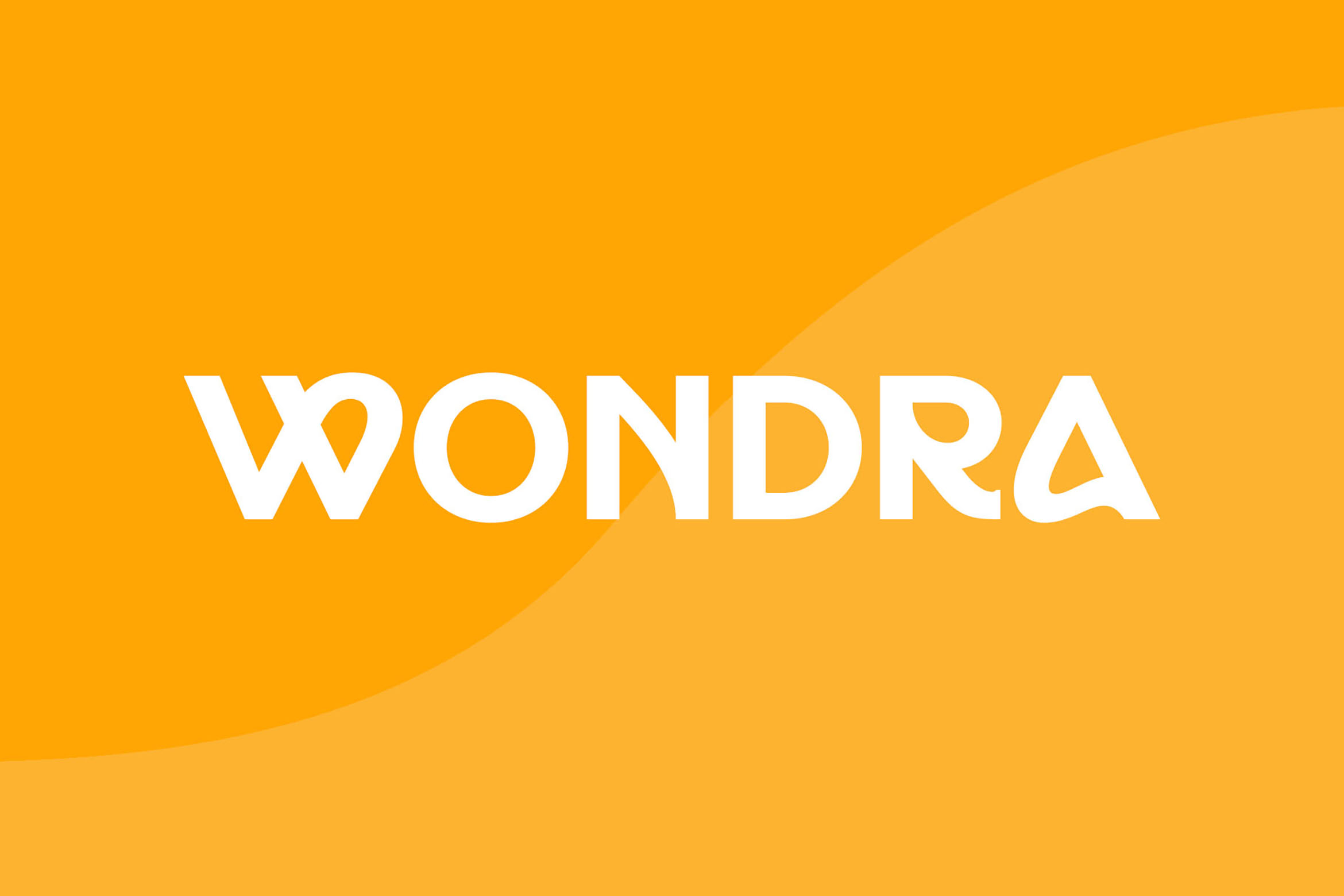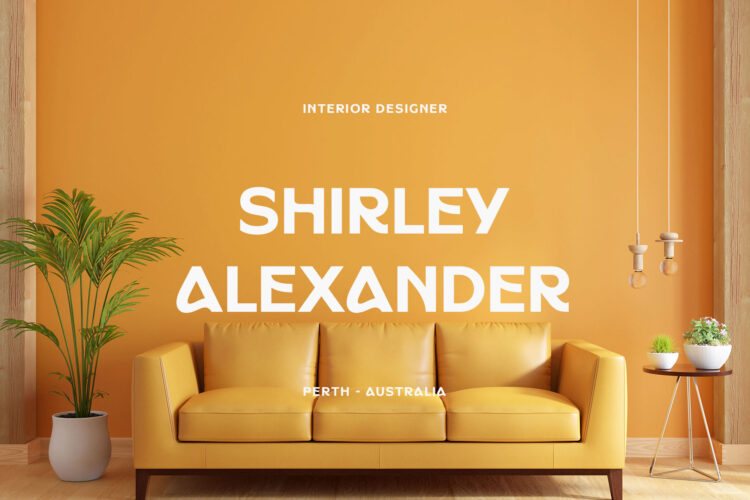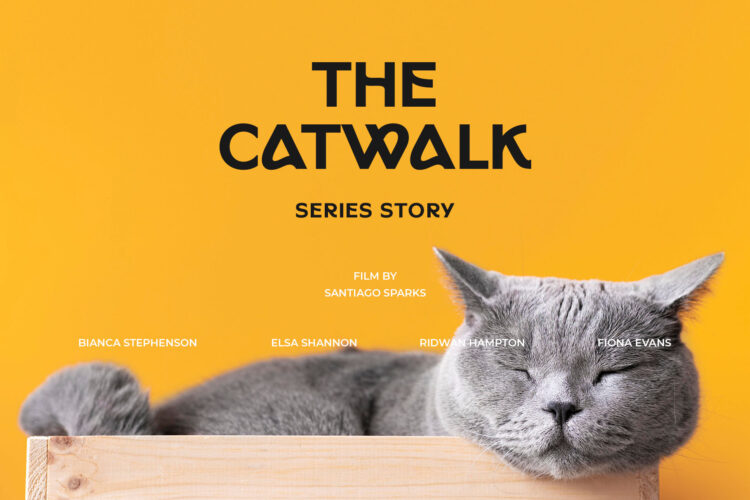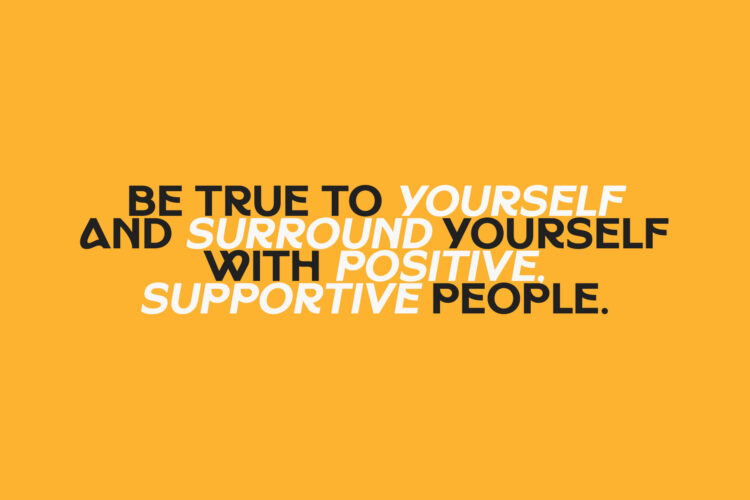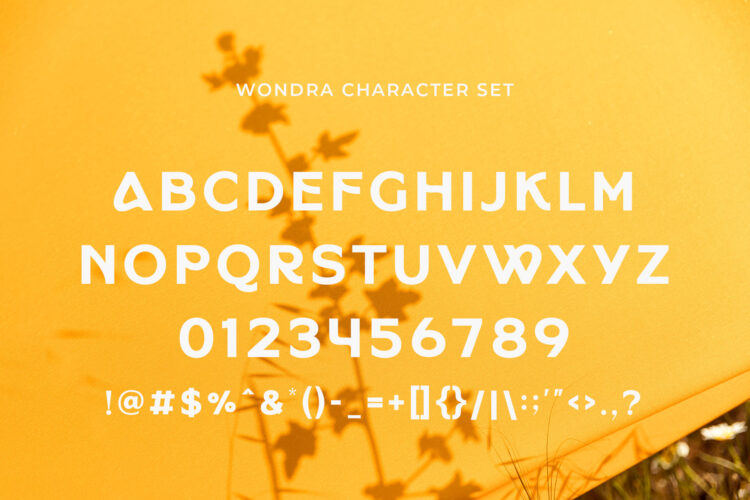
Wondra
Introducing Wondra – Modern Sans Serif.
Wondra is a modern and simple font, best used as a display for headings, logos, branding, magazines, product packaging and invitations.